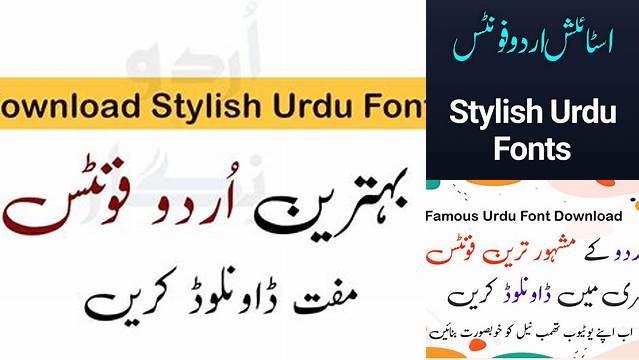
1. Understanding Urdu Font Compatibility with MS Word
Before you jump in and start downloading, it's super important to understand how Urdu fonts play with MS Word. Not all fonts are created equal, and compatibility can be a bit tricky. You need to make sure the font supports the Urdu script (which flows from right to left, BTW) and that MS Word can properly render it. Older versions of Word might struggle, so having a relatively recent version is a good idea. Also, keep an eye out for fonts that are specifically designed for office applications. This usually means they've been tested and optimized for readability and ease of use within Word. You don’t want to end up with a font that looks amazing but causes formatting headaches, right? Trust me, I’ve been there. Making sure your font is compatible will save you a lot of frustration down the line. So, do a little research and read the font's description before you click that download button. It's a small step that can make a big difference.
6. Best Urdu Font Styles for Formal Documents
When creating formal documents in Urdu, choosing the right font style is crucial. You want something that's both elegant and easy to read. Some of the best Urdu font styles for formal settings include traditional Naskh and Nastaliq fonts. These fonts are known for their calligraphic beauty and clear letterforms. Look for fonts that have a clean and professional appearance, without too much ornamentation. Avoid overly stylized or decorative fonts, as they can be distracting and difficult to read. Some popular choices include Alvi Nastaleeq, Noori Nastaleeq, and Nafees Naskh. These fonts have been specifically designed for readability and are widely used in Urdu publishing. Remember to choose a font size that's appropriate for the document – typically between 12 and 14 points. Also, pay attention to the line spacing and margins to ensure a professional and polished look. With the right font choice, your formal Urdu documents will make a great impression!
7. Creative Urdu Fonts for Design Projects
If you're working on a design project and need to add a touch of Urdu flair, you're in luck! There are tons of creative Urdu fonts out there that can really make your project stand out. These fonts often feature unique letterforms, bold strokes, and artistic details. When choosing a creative Urdu font, think about the overall tone and style of your project. Do you want something modern and edgy, or something more traditional and elegant? There are fonts that mimic hand-lettering, fonts with geometric shapes, and fonts with playful curves. Some great places to find creative Urdu fonts include Behance, Dribbble, and specialized Urdu design websites. Just be sure to check the license before using the font in your commercial projects. Experiment with different fonts and see what works best for your design. Don't be afraid to try something bold and unexpected! With the right creative Urdu font, you can add a unique and eye-catching element to your designs.
8. Urdu Calligraphy Fonts: A Touch of Elegance
For a touch of timeless elegance, consider using Urdu calligraphy fonts. These fonts are inspired by the ancient art of Islamic calligraphy and feature flowing lines, intricate details, and graceful curves. Urdu calligraphy fonts can add a sense of sophistication and beauty to your documents and designs. They're perfect for invitations, certificates, and other special occasions. When choosing a calligraphy font, look for one that's both visually stunning and easy to read. Some fonts can be overly ornate and difficult to decipher. Popular Urdu calligraphy styles include Nastaliq, Thuluth, and Diwani. Each style has its own unique characteristics and aesthetic appeal. You can find Urdu calligraphy fonts on many of the same websites that offer regular Urdu fonts. Just be sure to choose a font that matches the overall tone and style of your project. With the right Urdu calligraphy font, you can add a touch of artistry and tradition to your work.
9. Combining Urdu and English Fonts in One Document
Creating documents that seamlessly blend Urdu and English text can be a bit of a challenge, but it's totally doable! The key is to choose fonts that complement each other in terms of style, weight, and readability. When pairing Urdu and English fonts, look for fonts that have similar x-heights (the height of the lowercase letters). This will help create a more visually balanced look. Also, consider the overall tone of your document. If you're using a formal Urdu font, pair it with a classic English font like Times New Roman or Arial. If you're using a more modern Urdu font, try pairing it with a contemporary English font like Helvetica or Open Sans. Pay attention to the spacing between the lines and the letters. You may need to adjust the kerning and tracking to create a more harmonious appearance. It's also a good idea to use a consistent font size for both Urdu and English text. With a little attention to detail, you can create documents that beautifully combine Urdu and English typography.
10. The Importance of Font Licensing for Urdu Fonts
Font licensing is a topic that often gets overlooked, but it's super important, especially when it comes to using Urdu fonts in your projects. Before you download and use any font, make sure you understand the terms of the license. Some fonts are free for personal use but require a commercial license if you're using them in a project that generates revenue. Other fonts are completely free for both personal and commercial use. Pay close attention to the specific restrictions outlined in the license. Some fonts may not be allowed to be embedded in documents or used in logos. Using a font without the proper license can lead to legal trouble, so it's always better to be safe than sorry. If you're unsure about the licensing terms, contact the font designer or the website where you downloaded the font. They'll be able to provide you with clarification. By understanding and respecting font licenses, you can ensure that you're using Urdu fonts legally and ethically.
11. Exploring Different Urdu Font Weights
Just like English fonts, Urdu fonts come in a variety of weights, from light and delicate to bold and impactful. The weight of a font refers to the thickness of the strokes that make up the letters. Choosing the right font weight can have a big impact on the readability and visual appeal of your text. Light weights are often used for body text, as they're easy on the eyes and don't distract from the content. Bold weights are great for headlines and titles, as they grab attention and create emphasis. When choosing a font weight, consider the overall style and purpose of your document. If you're creating a formal report, you might want to stick with a medium or regular weight. If you're designing a poster, you might want to go with a bold or extra-bold weight. Experiment with different font weights to see what works best for your project. You can also use different weights to create visual hierarchy and guide the reader's eye through the text.
12. Urdu Fonts for Mobile Devices
In today's mobile-first world, it's essential to consider how Urdu fonts look on mobile devices. Many Urdu fonts that look great on a desktop computer may not be as legible on a smaller screen. When choosing Urdu fonts for mobile apps or websites, look for fonts that are specifically designed for mobile readability. These fonts often have thicker strokes, larger x-heights, and wider letter spacing. Test your fonts on a variety of mobile devices to ensure that they're easy to read on different screen sizes and resolutions. Pay attention to the line height and letter spacing, as these can have a big impact on readability. You may also need to adjust the font size to make it comfortable to read on mobile devices. Consider using a responsive design framework that automatically adjusts the font size and layout based on the screen size. With the right Urdu fonts, you can create a seamless and enjoyable reading experience for your mobile users.
13. Urdu Fonts and Accessibility
Accessibility is an important consideration when choosing Urdu fonts, especially if you want to make your content accessible to people with disabilities. Some Urdu fonts are more accessible than others, depending on their design and features. When choosing Urdu fonts for accessibility, look for fonts that have clear and distinct letterforms. Avoid fonts with overly stylized or decorative elements, as these can be difficult for people with visual impairments to read. Consider using a sans-serif font, as these fonts tend to be more legible than serif fonts. Make sure the font has adequate contrast with the background color. People with low vision often have difficulty reading text that has low contrast. Use a font size that's large enough to be easily read by people with visual impairments. You can also provide options for users to adjust the font size and color to their preferences. By choosing accessible Urdu fonts, you can make your content more inclusive and user-friendly for everyone.
14. Creating Your Own Urdu Fonts
Feeling ambitious? If you're a designer or typographer, you might be interested in creating your own Urdu fonts. Creating a font is a complex and time-consuming process, but it can be a rewarding experience. There are many software tools available for creating fonts, such as FontLab Studio, Glyphs, and RoboFont. These tools allow you to design each letterform, adjust the spacing and kerning, and generate the font files. When creating an Urdu font, you'll need to pay close attention to the unique characteristics of the Urdu script, such as the right-to-left writing direction and the cursive connections between letters. Consider studying traditional Urdu calligraphy to gain a better understanding of the letterforms and their proportions. You can also collaborate with experienced Urdu typographers or calligraphers to get feedback on your designs. Once you've created your font, you can test it in various applications to ensure that it works correctly. You can also share your font with the world by uploading it to font marketplaces or creating your own website.
15. The Future of Urdu Typography
The world of Urdu typography is constantly evolving, with new fonts and technologies emerging all the time. As digital publishing becomes more prevalent, there's a growing demand for high-quality Urdu fonts that are optimized for online readability. We're also seeing a trend towards more creative and expressive Urdu fonts that push the boundaries of traditional calligraphy. The development of variable fonts is also having a big impact on Urdu typography. Variable fonts allow designers to create fonts with a wide range of weights, widths, and styles, all within a single font file. This makes it easier to create responsive and adaptable typography that looks great on any device. As machine learning and artificial intelligence become more advanced, we may also see new tools that automate the process of font design and generation. The future of Urdu typography is bright, with endless possibilities for innovation and creativity.
16. Urdu Font Conversion Tools
Sometimes you might need to convert Urdu fonts from one format to another. Maybe you have an old document that uses a font that's no longer supported, or you need to convert a font for use in a specific application. There are several Urdu font conversion tools available online that can help you with this process. These tools typically allow you to upload a font file and convert it to a different format, such as TTF, OTF, or WOFF. Some tools also allow you to convert between different Urdu encoding schemes, such as ANSI, Unicode, and UTF-8. When using a font conversion tool, it's important to choose a tool that's reliable and accurate. Some tools may produce fonts that are distorted or incomplete. Always test the converted font to make sure it works correctly before using it in your projects. You can also use font editing software to manually convert fonts, but this requires more technical expertise. With the right font conversion tool, you can easily convert Urdu fonts to the format you need.
17. Understanding Urdu Font Encodings
Urdu font encodings can be a bit confusing, especially if you're not familiar with the technical details. An encoding is a system that maps characters to numerical values, allowing computers to store and display text. There are several different encoding schemes used for Urdu fonts, including ANSI, Unicode, and UTF-8. ANSI is an older encoding scheme that's limited to 256 characters. Unicode is a more modern encoding scheme that supports a much wider range of characters, including all the characters in the Urdu alphabet. UTF-8 is a variable-width encoding scheme that's based on Unicode. It's the most widely used encoding scheme on the web. When working with Urdu fonts, it's important to choose the correct encoding scheme. If you use the wrong encoding scheme, your text may not display correctly. Most modern applications and operating systems support Unicode and UTF-8, so these are generally the best choices. However, you may need to use a different encoding scheme if you're working with older systems or applications. Always test your text to make sure it's displaying correctly, regardless of the encoding scheme you're using.
18. Finding Urdu Fonts for Mac
Mac users, don't worry, we haven't forgotten about you! Finding Urdu fonts for Mac is just as easy as finding them for Windows. Most of the websites that offer free Urdu fonts also have versions that are compatible with Mac. When downloading Urdu fonts for Mac, make sure you choose fonts that are in the TTF or OTF format. These formats are supported by macOS. To install a font on your Mac, simply double-click the font file and click the "Install Font" button. The font will then be installed in your system fonts folder and will be available for use in all your applications. You can also manually install fonts by copying the font files into the /Library/Fonts folder or the /Users/YourUsername/Library/Fonts folder. If you're having trouble finding Urdu fonts for Mac, try searching on websites like FontSpace, DaFont, or Google Fonts. These websites have a wide selection of fonts that are compatible with macOS. With a little searching, you'll be able to find the perfect Urdu fonts for your Mac.
19. Urdu Fonts for Graphic Design
If you're a graphic designer, you know how important it is to choose the right fonts for your projects. Urdu fonts can add a unique and cultural touch to your designs, but it's important to choose fonts that are appropriate for the overall style and message. When choosing Urdu fonts for graphic design, consider the following factors: Readability, Style, Weight, and Compatibility. Experiment with different fonts and see what works best for your project. You can also use Urdu calligraphy to create custom lettering and typography for your designs. Many graphic design software programs, such as Adobe Photoshop and Illustrator, support Urdu fonts. Just make sure you have the correct font installed on your system. With the right Urdu fonts, you can create stunning and culturally relevant designs.
20. Urdu Fonts in Web Design
Using Urdu fonts in web design can add a unique and authentic feel to your website. However, it's important to choose fonts that are optimized for web readability and performance. When choosing Urdu fonts for web design, consider using web fonts. Web fonts are fonts that are hosted on a server and downloaded to the user's browser when they visit your website. This ensures that your website will display the correct fonts, even if the user doesn't have those fonts installed on their computer. Google Fonts is a great resource for finding free and open-source web fonts, including Urdu fonts. When using web fonts, it's important to choose fonts that are optimized for web performance. Large font files can slow down your website, so try to use fonts that are lightweight and compressed. You can also use font loading techniques to prioritize the loading of important fonts and improve the overall performance of your website. With the right Urdu fonts, you can create a website that's both beautiful and functional.
21. Free vs. Paid Urdu Fonts
When searching for Urdu fonts, you'll come across both free and paid options. Free fonts can be a great option if you're on a budget, but it's important to be aware of the limitations. Free fonts may not be as high-quality as paid fonts, and they may not come with the same level of support. Paid fonts typically offer a wider range of styles, weights, and features. They're also more likely to be professionally designed and tested. When choosing between free and paid fonts, consider the following factors: Quality, Features, Support, and Licensing. If you're working on a professional project, it may be worth investing in paid fonts to ensure that you're using the best possible typography. However, if you're just experimenting or working on a personal project, free fonts can be a great option. Just make sure you're aware of the licensing terms and that you're using the font legally.
22. Tips for Choosing the Right Urdu Font
Choosing the right Urdu font can be a daunting task, but with a little planning and research, you can find the perfect font for your project. Here are some tips to help you choose the right Urdu font: Consider the Purpose, Think about the Style, Pay attention to Readability, Test the Font, and Check the Licensing. By following these tips, you can choose an Urdu font that enhances your message and creates a positive impression.
23. Maintaining Font Consistency in Documents
Maintaining font consistency is crucial for creating professional and polished documents. When working with Urdu fonts, it's important to establish a consistent typography system and stick to it throughout your document. Choose a limited number of fonts (typically no more than two or three) and use them consistently for headings, body text, and captions. Use the same font size and weight for similar elements throughout your document. Use styles to apply consistent formatting to your text. Styles allow you to define a set of formatting attributes (such as font, size, and color) and apply them to multiple sections of your document. This makes it easy to maintain consistency and make global changes to your formatting. Review your document carefully to ensure that your fonts are consistent throughout. Pay attention to details such as line spacing, letter spacing, and kerning. By maintaining font consistency, you can create documents that are visually appealing and easy to read.
24. The History of Urdu Typography
The history of Urdu typography is a rich and fascinating story that spans centuries. The Urdu script is derived from the Persian script, which in turn is derived from the Arabic script. The earliest forms of Urdu typography were based on hand-written calligraphy. Over time, printing technologies were developed that allowed for the mass production of Urdu text. In the 19th century, the first Urdu typefaces were created. These typefaces were based on the traditional Nastaliq style of calligraphy. In the 20th century, new Urdu typefaces were developed that were more modern and readable. Today, there are a wide variety of Urdu typefaces available, ranging from traditional calligraphic styles to modern sans-serif designs. The history of Urdu typography is a testament to the creativity and innovation of Urdu calligraphers and typographers.
25. Resources for Learning Urdu Calligraphy
If you're interested in learning Urdu calligraphy, there are many resources available to help you get started. Online Courses, Books, Workshops, Calligraphy Supplies, and Practice Regularly.
26. Common Mistakes to Avoid When Using Urdu Fonts
Using Urdu fonts effectively requires attention to detail. Here are some common mistakes to avoid: Incorrect Encoding, Inconsistent Font Usage, Ignoring Readability, Overusing Decorative Fonts, and Neglecting Licensing. By avoiding these common mistakes, you can ensure that your Urdu typography is both beautiful and effective.
27. Urdu Fonts and Branding
Urdu fonts can play a powerful role in branding, helping to create a unique and culturally relevant identity. The right Urdu font can evoke a sense of tradition, elegance, or modernity, depending on the desired brand image. When choosing Urdu fonts for branding, consider the following: Target Audience, Brand Values, Visual Identity, Consistency, and Legibility.
28. The Impact of Technology on Urdu Font Design
Technology has had a profound impact on Urdu font design, enabling designers to create more complex and innovative typefaces. Digital Font Design Software, Variable Fonts, 3D Font Design, AI-Powered Font Tools, and Online Font Foundries.
29. The Role of Urdu Fonts in Cultural Preservation
Urdu fonts play a vital role in preserving and promoting Urdu language and culture. By using Urdu fonts in books, newspapers, websites, and other media, we can help to ensure that the Urdu language continues to thrive for generations to come. Urdu Fonts in Education, Urdu Fonts in Literature, Urdu Fonts in Media, Urdu Fonts in Art and Design, Supporting Urdu Font Development.